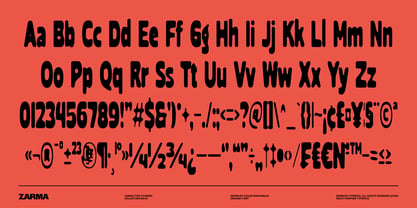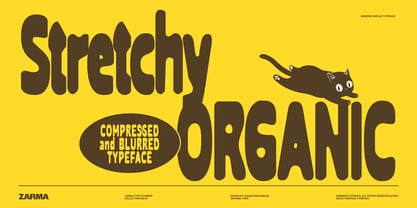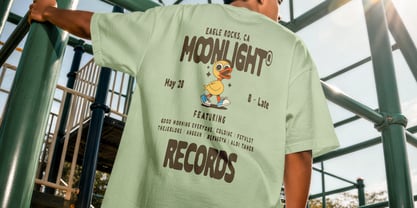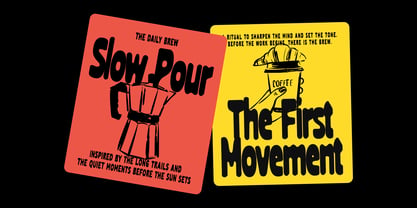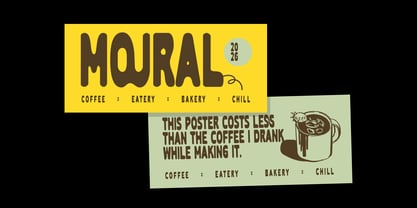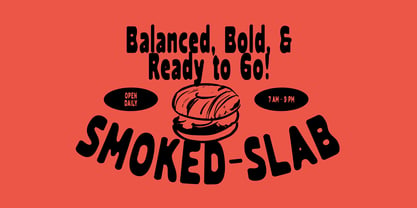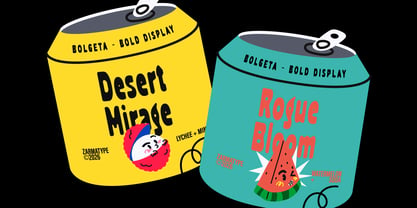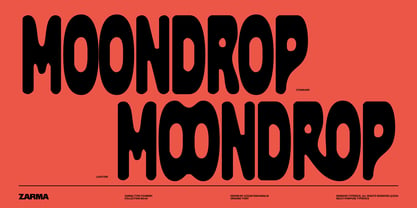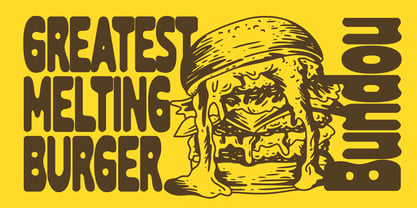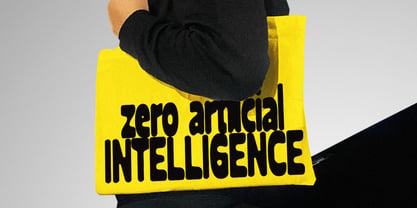
Stretchy Organic
Stretchy Organic Font - Stop distorting manually — Stretchy Organic ships with the rough, compressed grit built in.
Some type was made to be clean. Stretchy Organic was made to be felt. Born from the tension between structure and chaos, this rough compressed font carries the spirit of hand-stamped letterpress, sun-bleached street posters, and ink-soaked zine culture — all squeezed into a tall, tight display face that hits hard without trying. Every letterform breathes with organic imperfection: slightly blurred edges that mimic real-world print pressure, compressed proportions that demand vertical space, and a raw tactile weight that no digital polish could ever fake. It's the kind of stretched bold font that makes your eyes stop mid-scroll.
Stop wasting hours manually distorting, blurring, and compressing type just to get that raw, rough look — Stretchy Organic is your ready-to-use shortcut to authentic texture. What sets it apart from every other bold display font on the market is the way it holds its character at any size. Scale it massive for a poster headline and the blurred rough texture reads like a worn screen print. Use it tight and stacked and it channels the compressed editorial energy of underground music zines and cult food branding. Whether you're building a packaging label, a streetwear graphic, or a campaign that refuses to whisper — this organic stretch font delivers that elusive quality: type that looks like it already existed in the world before you placed it on the canvas.
Perfect for: Streetwear & apparel branding, food and beverage packaging, music event posters, editorial headlines, indie brand identities, merchandise graphics, zine and print layouts, logo lettering, and any creative project that needs bold organic type with real-world texture and attitude.
Features:
• Uppercase & Lowercase
• Numbers & Punctuation
• Ligatures & Stylistic Alternates
• Multilingual Support